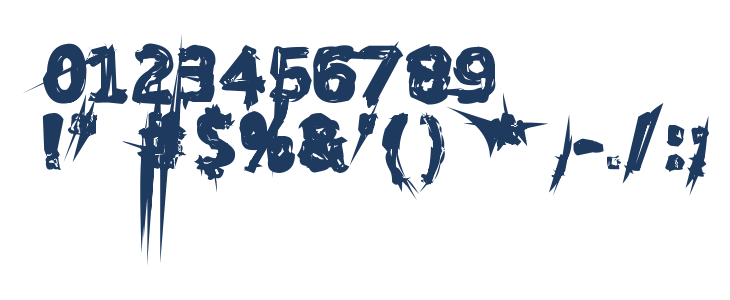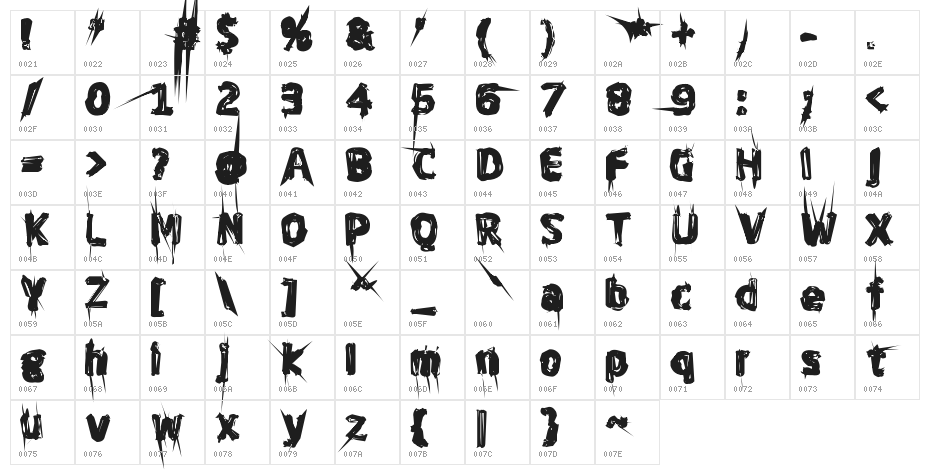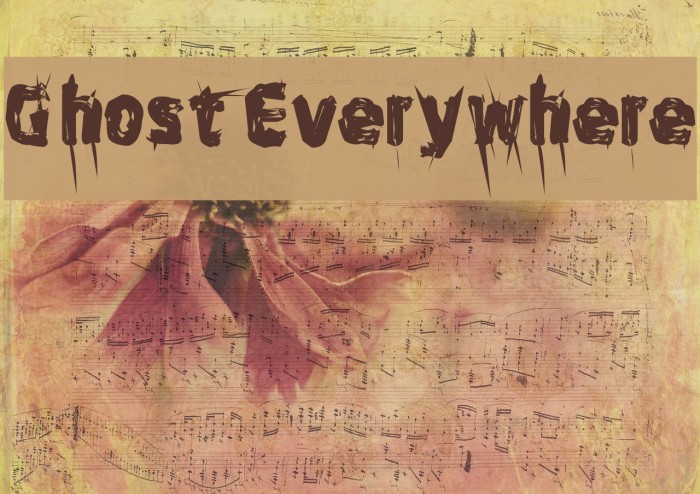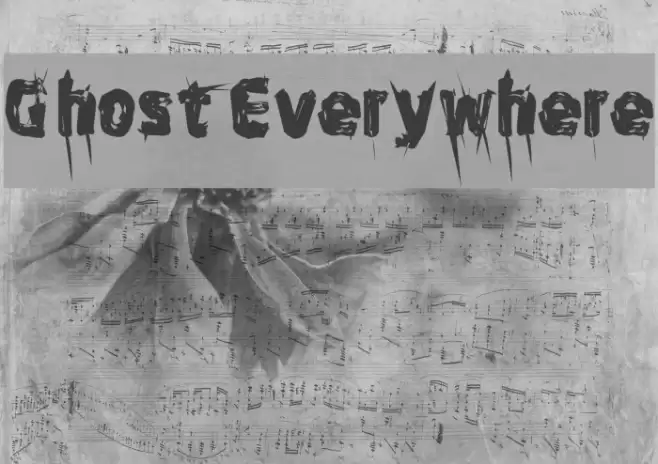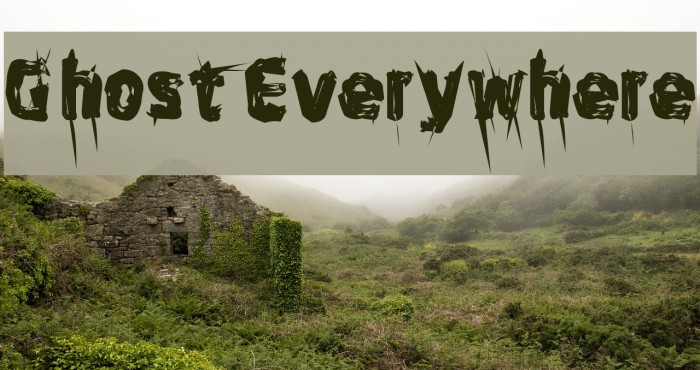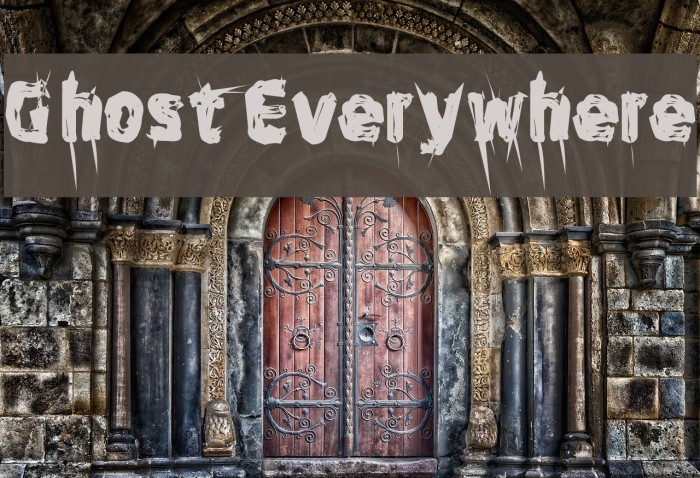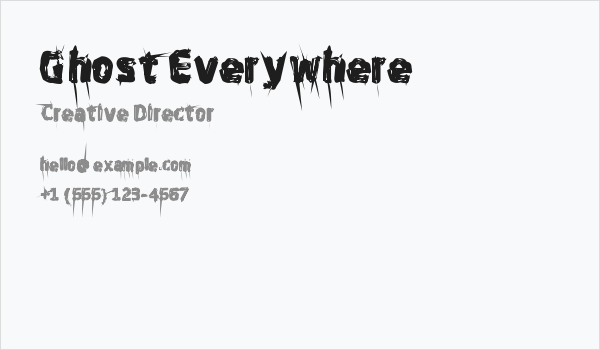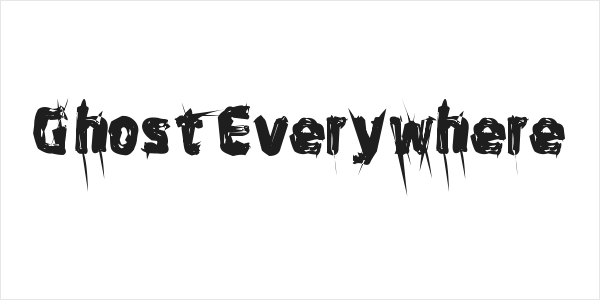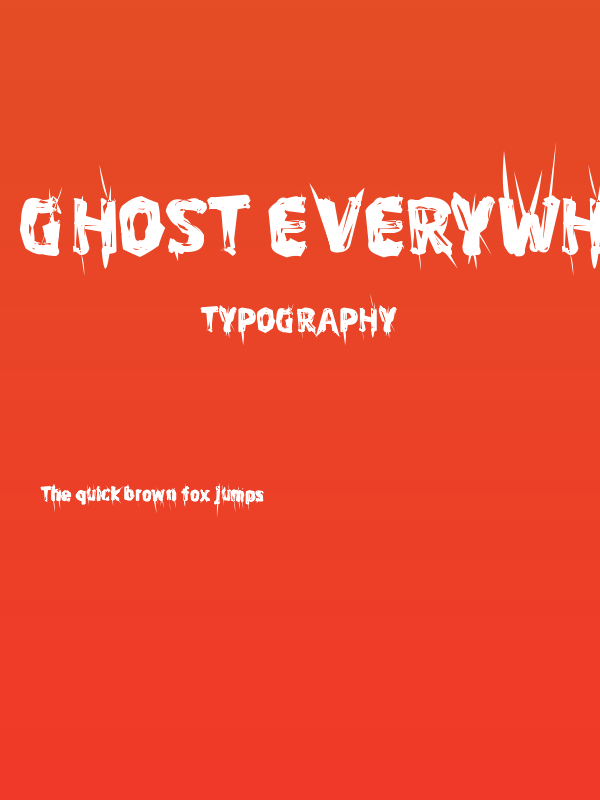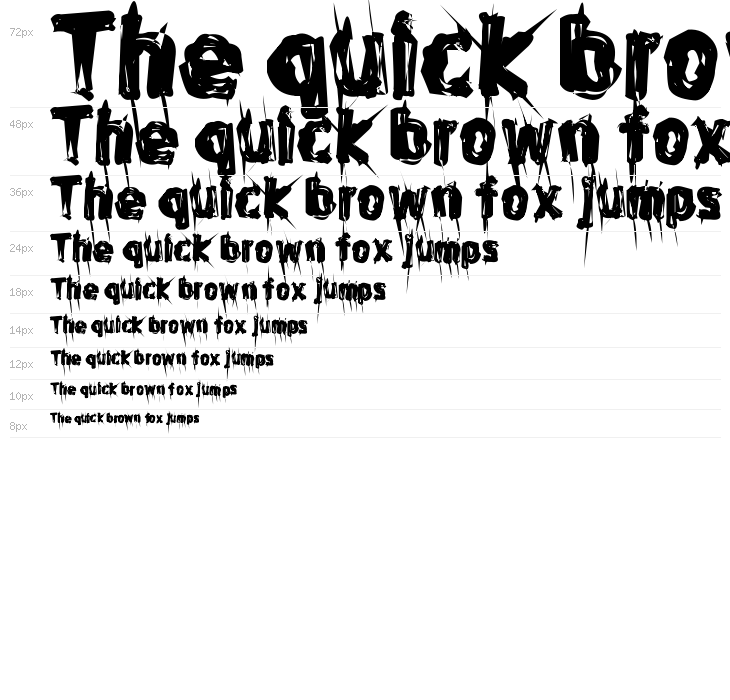
Ghost Everywhere Font
Ghost Everywhere Description
This font features a highly decorative and distressed style, with jagged edges and irregular shapes that give it a ghostly, eerie appearance. The characters are bold and heavily stylized, with an uneven texture that suggests a sense of decay or destruction. The uppercase and lowercase letters maintain a consistent theme, with sharp, pointed elements protruding from the main strokes. Numbers and special characters follow the same design, enhancing the overall haunted aesthetic. This font is ideal for projects that require a spooky or horror-themed look, such as Halloween invitations, haunted house posters, or any design needing a dramatic, eye-catching typeface.